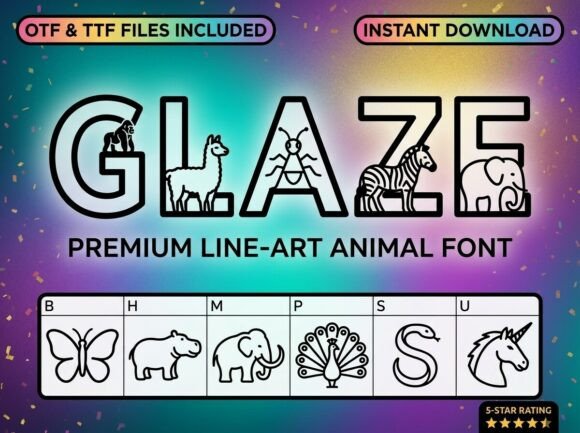
Glaze Font – Free Download
Introduction to Glaze Font
Bring your designs to life with Glaze, a charming display typeface that captures a “wild-and-wonderful” soul.
This font features bold, hollow sans-serif letterforms uniquely inhabited by rhythmic, hand-drawn animal silhouettes—from gorillas and llamas to zebras and peacocks—cleverly integrated into the counters of each character With its heavy illustrative weight and educational personality, Glaze is the premier choice for independent zoo branding, children’s book titles, creative animal sanctuary logos, and high-impact “playful-and-primitive” social media headers.
Key Features of Glaze Font
Why Choose Glaze Font?